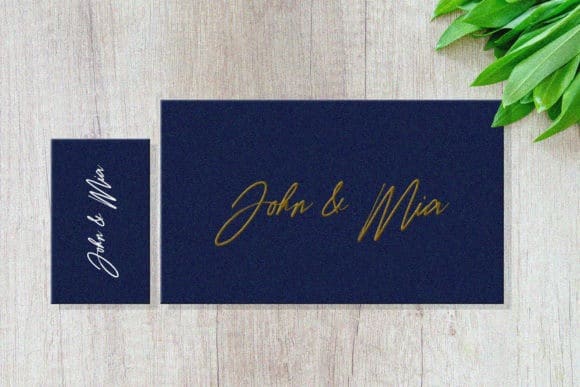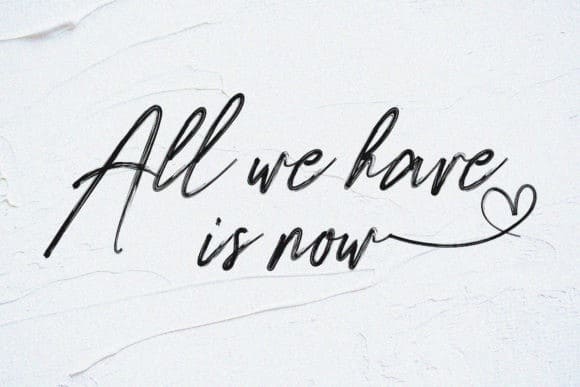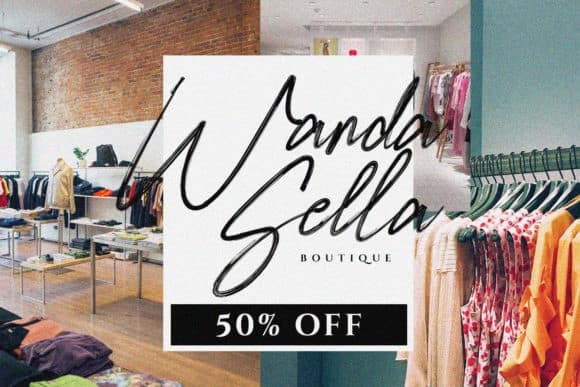
Thanks for checking out Hembusan Script Font. A modern brush font, organic, dynamic, and energetic. Made from font designer named jadatype. This versatile script font has a wide spectrum of applications ranging from greeting cards to headlines and is guaranteed to add a modern feel to your next project.